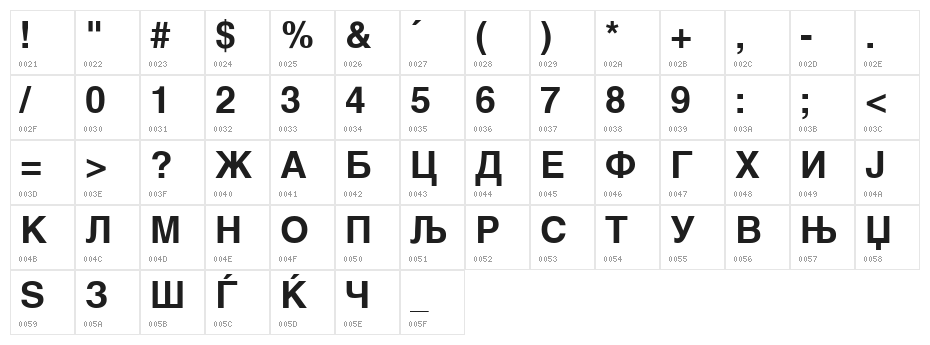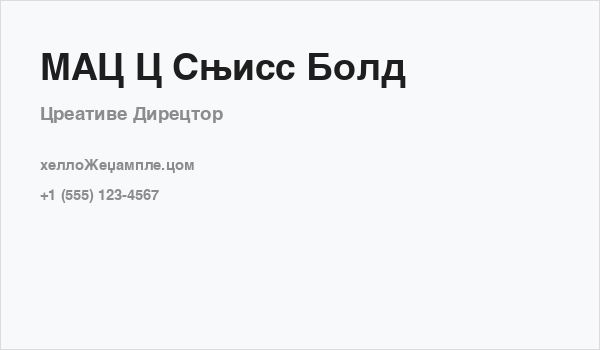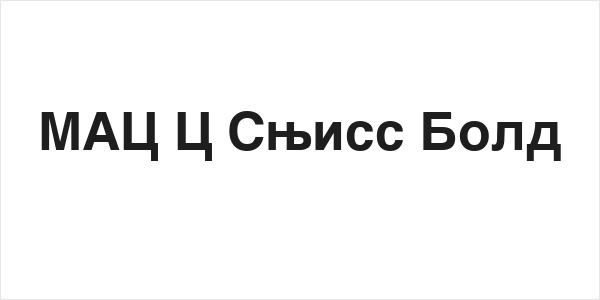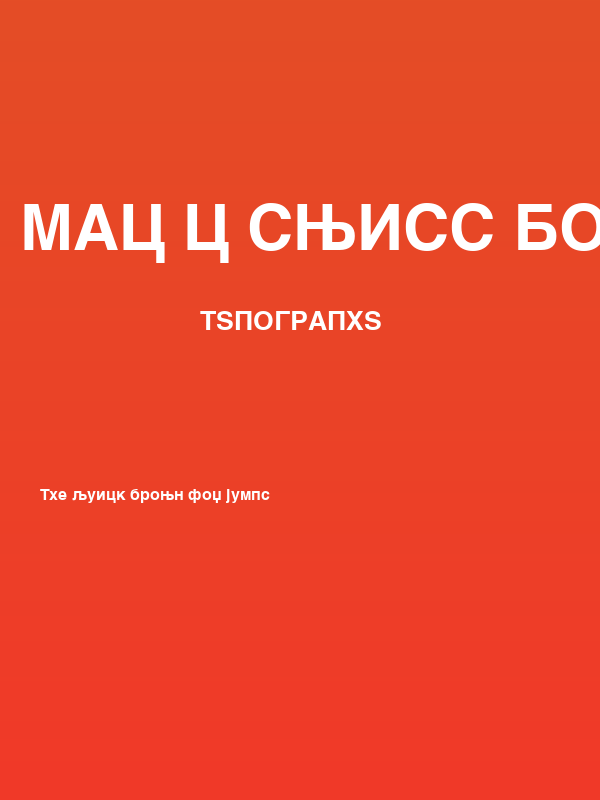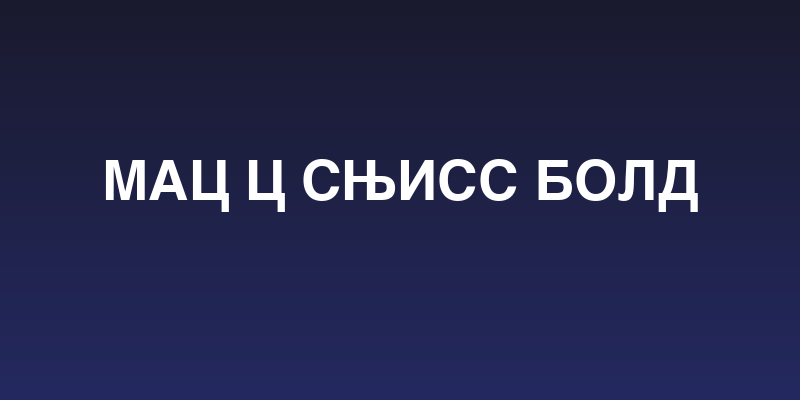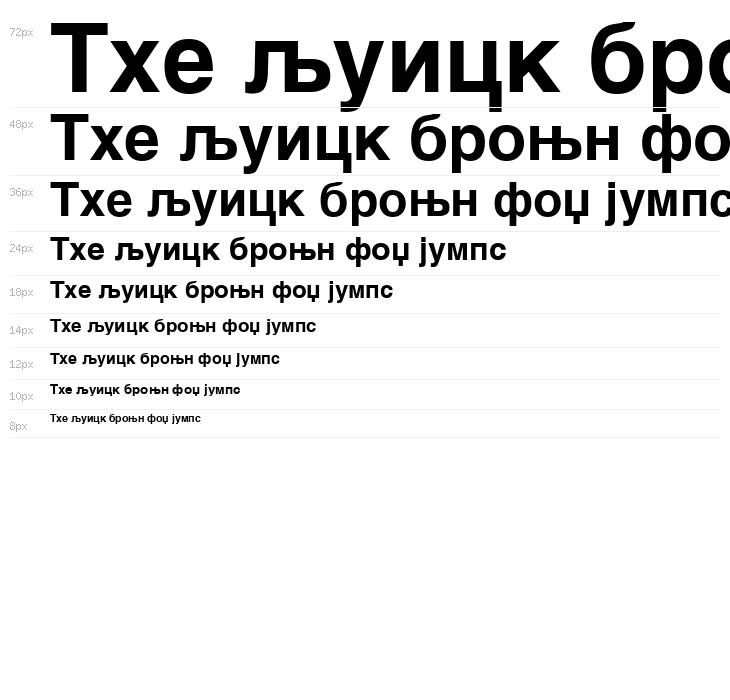
MAC C Swiss Bold Font
MAC C Swiss Bold Description
This font features a bold and assertive design, characterized by its strong, clean lines and uniform stroke width. The characters are well-defined with a modern aesthetic, making it highly legible and impactful. The uppercase and lowercase letters maintain a consistent style, while the numerals and special characters complement the overall design. Its geometric structure and lack of serifs give it a contemporary feel, suitable for a variety of applications where clarity and emphasis are required.